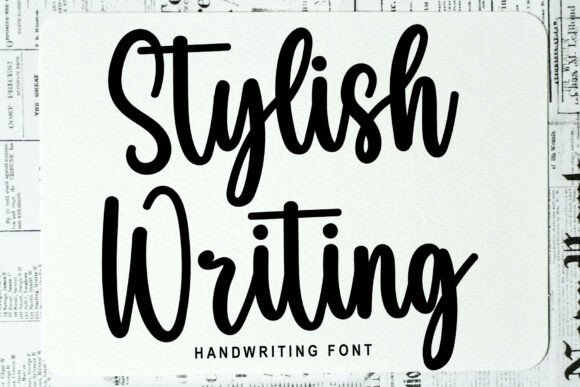
Stylish Writing Font
Stylish Writing is a stylish and dainty script font. It is suitable for any projects such as : logos, branding projects, label, photography, watermark, special events, and all your other lovely projects that need a beautiful script taste. This font is PUA encoded which means you can access all of the glyphs and swashes with ease.